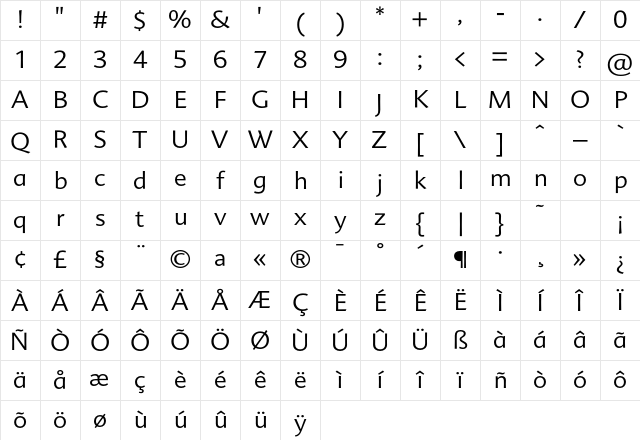
Advert-Light Regular
Design Context for Advert-Light
Advert-Light is a composed and adaptable typeface that performs quietly and consistently across a wide range of design contexts. Its slender proportions lend an understated elegance to any composition.